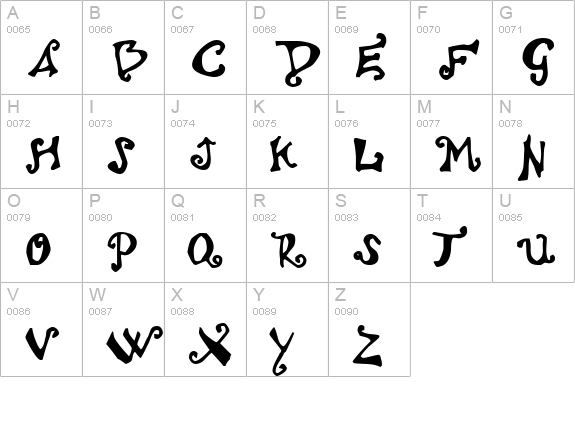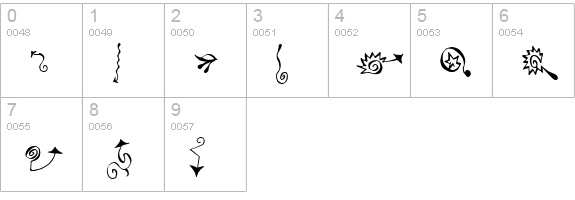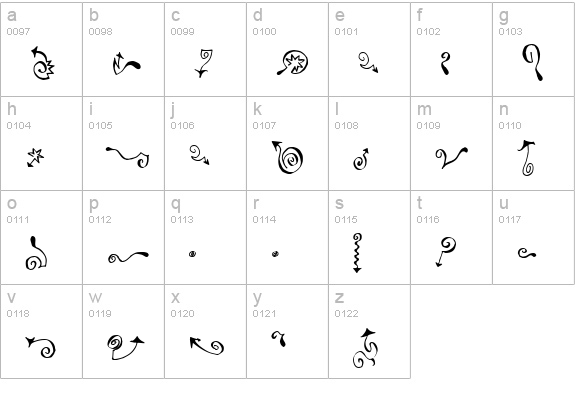
Polywog Font Details
Introducing Polywog Font - a whimsical and playful typeface that brings a touch of fun to your designs. With its charming, rounded letterforms and quirky details, Polywog is perfect for adding a friendly and inviting feel to any project. This unique font is free to download at FontsMarket.com, making it accessible to everyone looking to add a touch of creativity to their work. Whether you're designing a poster, creating a logo, or crafting a social media graphic, Polywog is sure to make your text stand out and bring a smile to your audience's face. With its versatility and eye-catching appeal, Polywog Font is a must-have addition to any designer's toolkit. Download it for free today and let your imagination run wild with this delightful typeface.